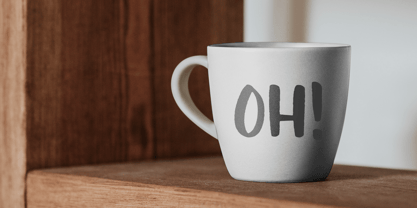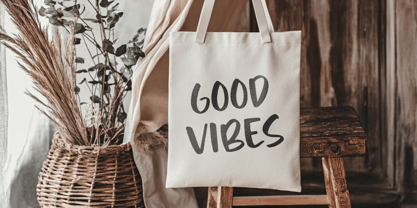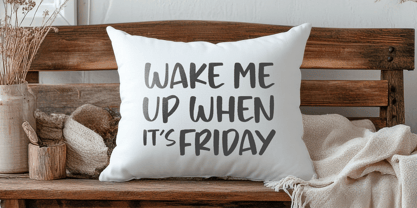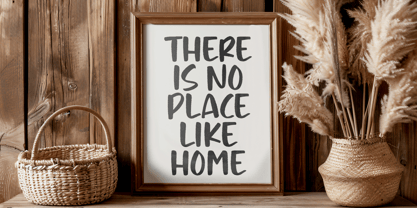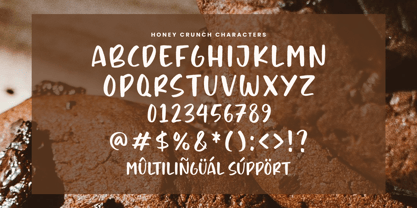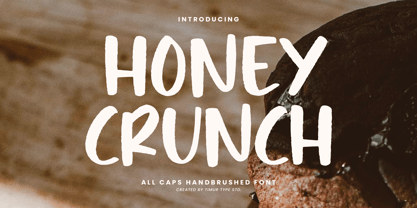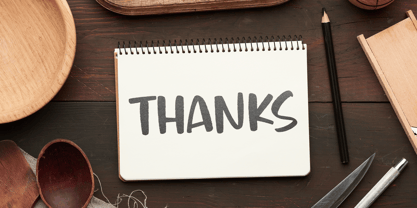
Honey Crunch
by Timurtype
The Honey Crunch Font Family was designed by Wara Sigit Tri Pamungkas and published by Timurtype. Honey Crunch contains 1 styles.
Introduced by Timurtype Studio!
Honey Crunch is a All Caps Handbrushed Font
This font is a all-caps handbrushed font that brings a playful, organic feel to any design. With its bold, expressive strokes and slightly irregular shapes, it captures the energy of hand-drawn lettering. Perfect for projects needing a warm, inviting vibe, this font is ideal for logos, packaging, posters, and anything that demands a touch of handcrafted charm.
Honey Crunch Font also supports multilingualism
Designers: Wara Sigit Tri Pamungkas
Publisher: Timurtype
Foundry: Timurtype
Design Owner: Timurtype